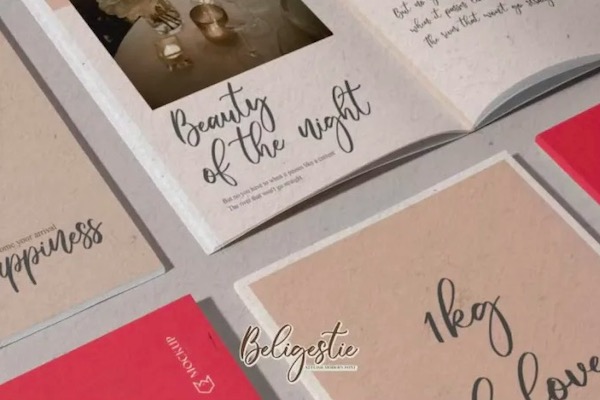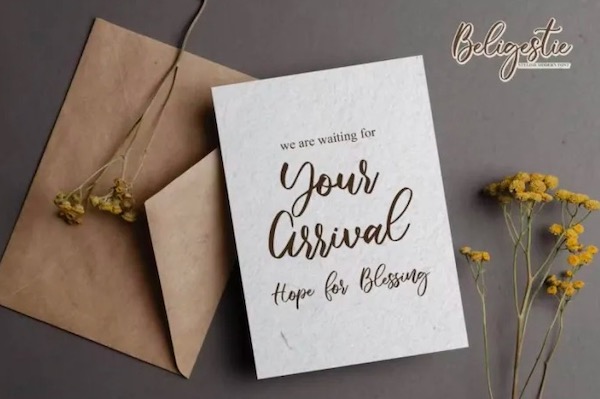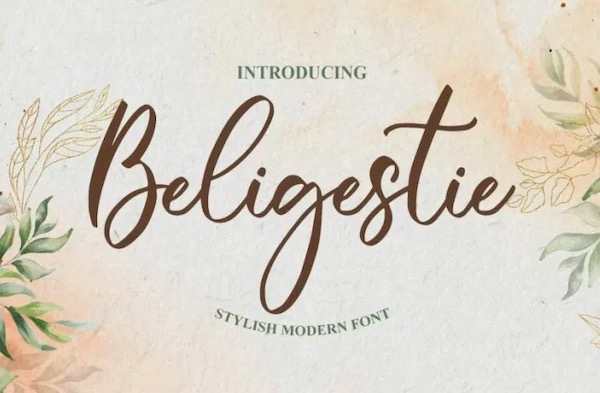
Beligestie Font is a luxury Stylish handwritten script typeface that includes some gorgeous features for professional designs. This handmade versatile & flexible font will give your projects a cool natural touch for every detail. This script font looks beautiful for any design project like Invitation, logo, book cover, craft, or any design purposes. This font is PUA encoded, which means you can access all of the ligatures.
Beligestie Handwritten Script Font